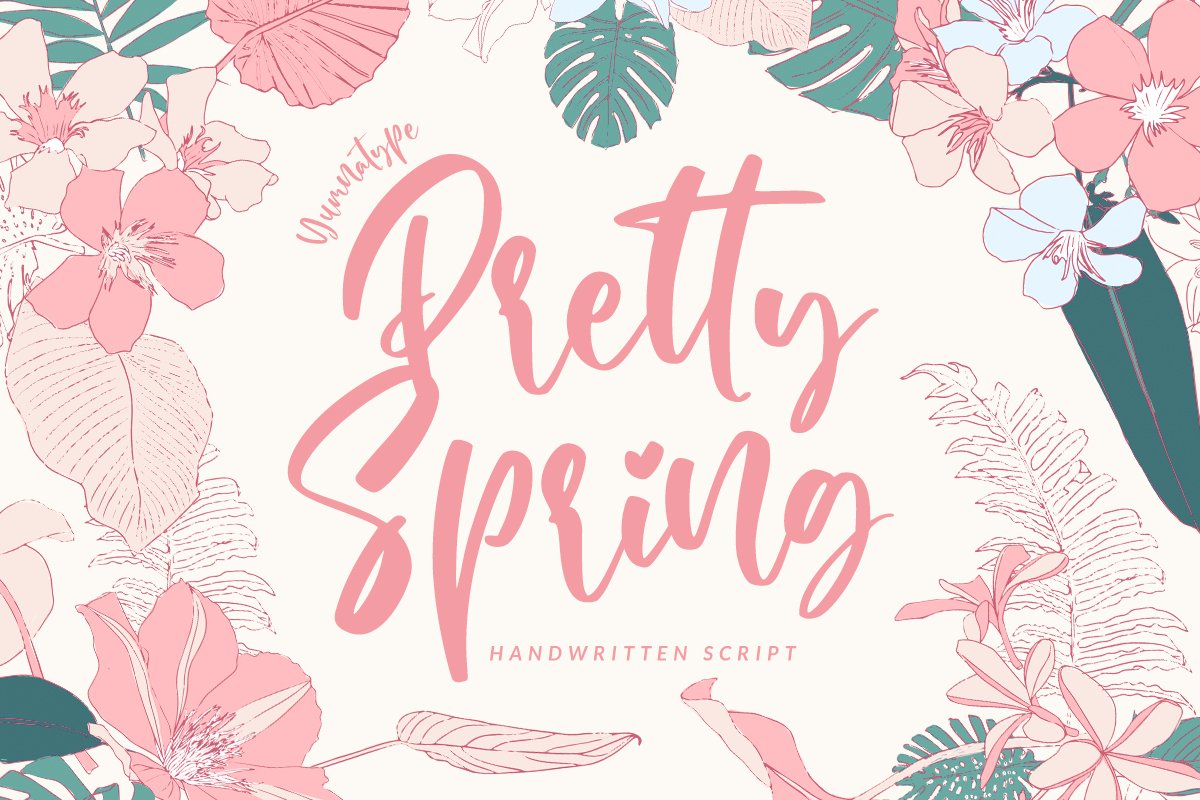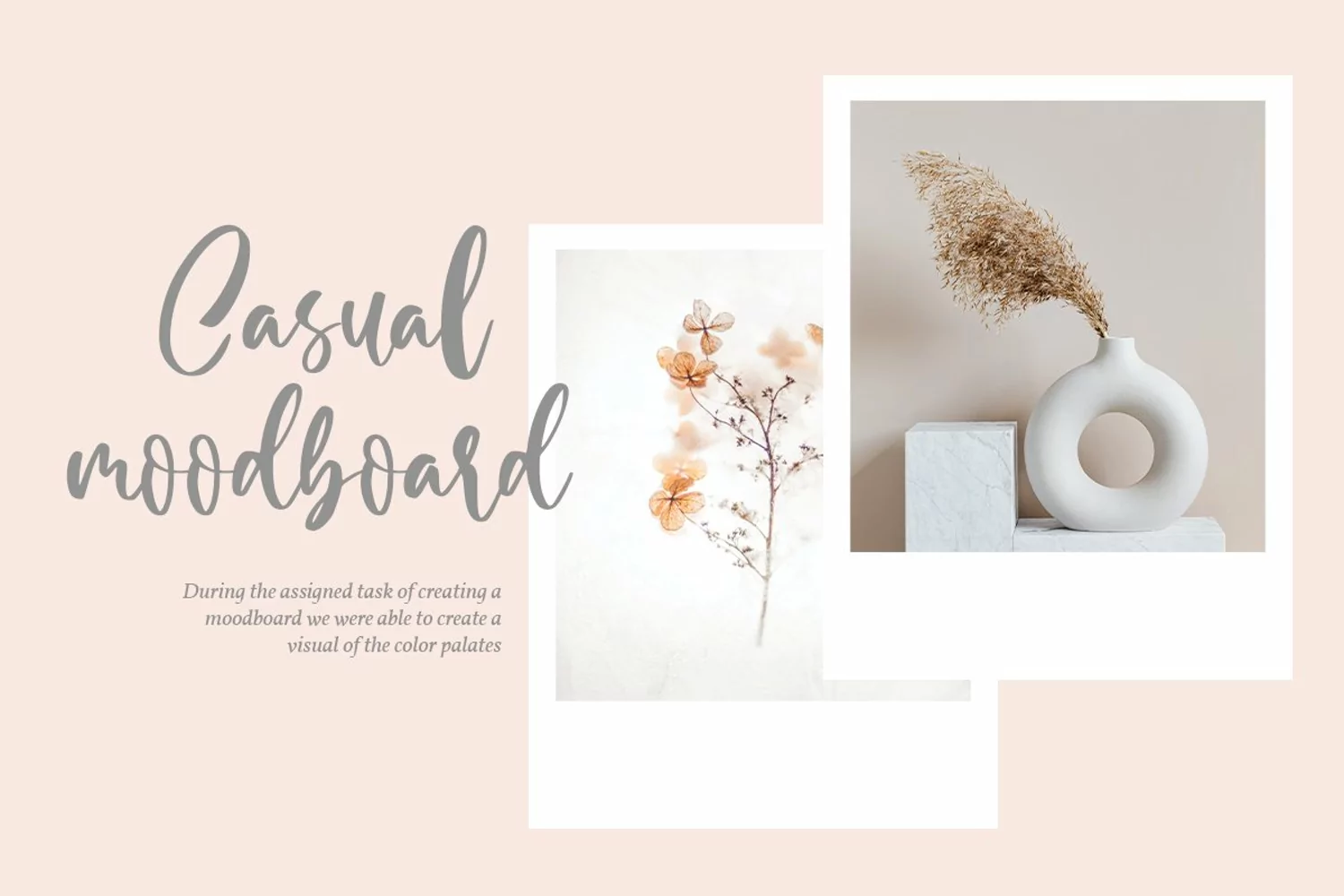
Say hello to Pretty Spring Script.
Pretty Spring is a beautiful and modern script.
It brings a beautiful and modern typeface that best used for weddings, branding, logotype, and quotes.
• Beautiful Ligatures
• Numerals and Punctuation
• Beginning Swash and  Ending Swashes (a-z)